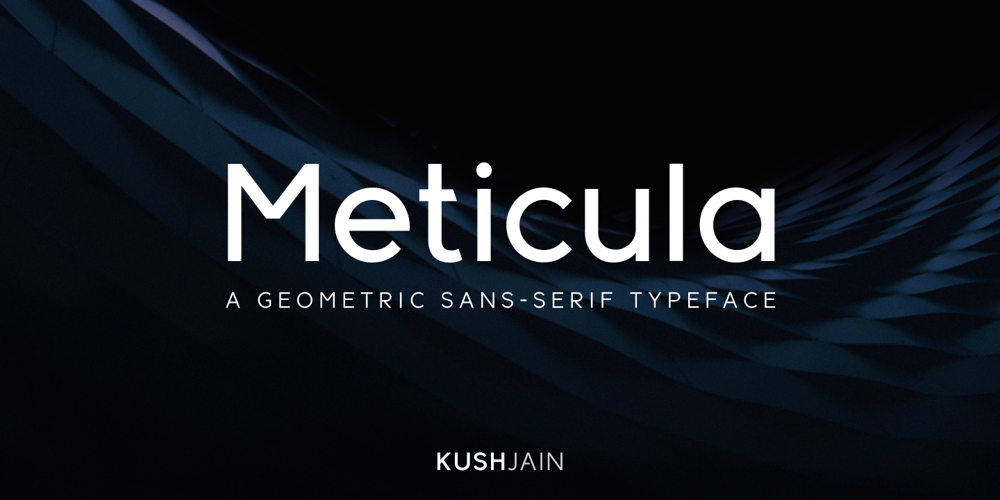
Meticula
Meticula font
Meticula Font Family was designed by Kushal Jain and published by KushJain. Meticula contains 18 styles and family package options. Meticula is a sans-serif font family meticulously crafted with geometric shapes and inspired by modern sans typefaces. Comes with 8 uprights and an outline font with italic counterparts. It’s aesthetic, minimal design and diverse font styles cater to all kinds of typography and graphic design work. Supports major Latin based languages, advanced open type features, full set of ligatures, punctuation and major currency symbols.